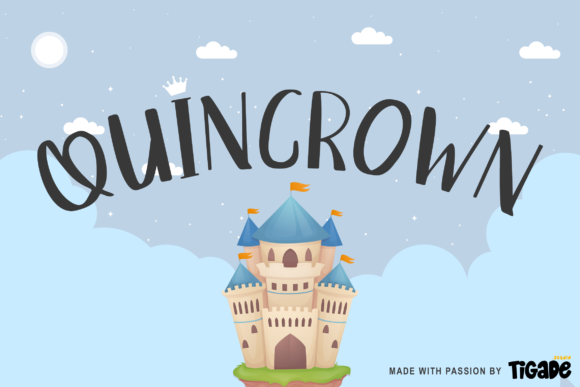
**Quincrown: The Quintessential Font for Enchanting Cards**
Quincrown is not just a font; it's a captivating journey into a whimsical world of letters. This enchanting display font, crafted with meticulous care by Tigade std., is the epitome of charm and playfulness. Its playful curves and whimsical strokes will add a touch of magic to your card designs, making them irresistible to the eye.
Indulge in its versatility and let your imagination soar. Quincrown is the perfect companion for a wide array of card creations, from heartfelt greetings to whimsical invitations. Its unique personality will elevate your designs to new heights, leaving a lasting impression on the hearts of your recipients.
Embrace the allure of Quincrown and witness the transformation of your cards into captivating masterpieces. Each letter is a delicate brushstroke, adding a touch of elegance and whimsy that will make your creations stand out from the ordinary. With Quincrown, your cards will become treasured keepsakes, cherished for their timeless beauty and enchanting charm.
Immerse yourself in the world of Quincrown and discover a world of endless possibilities. Let your creativity flow and create cards that are not just visually stunning but also emotionally resonant. Quincrown is the key to unlocking your imagination and crafting designs that will touch the hearts of all who behold them.
Don't resist the allure of Quincrown. Embrace its enchanting charm and embark on a creative journey that will leave a lasting legacy. With Quincrown, your cards will become more than just pieces of paper; they will become cherished memories, filled with love, laughter, and a touch of whimsy.